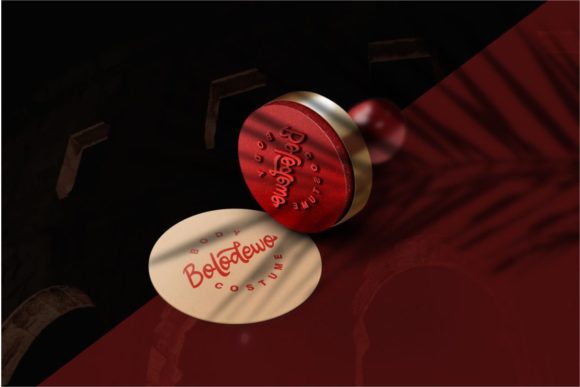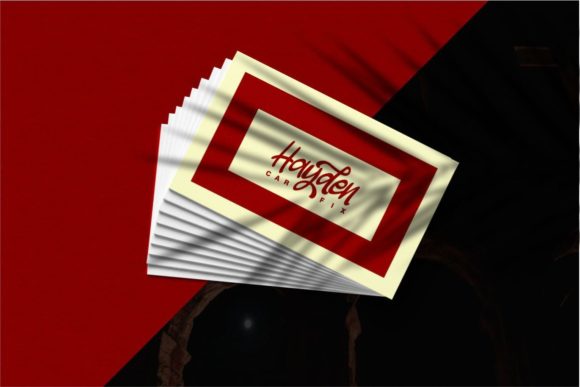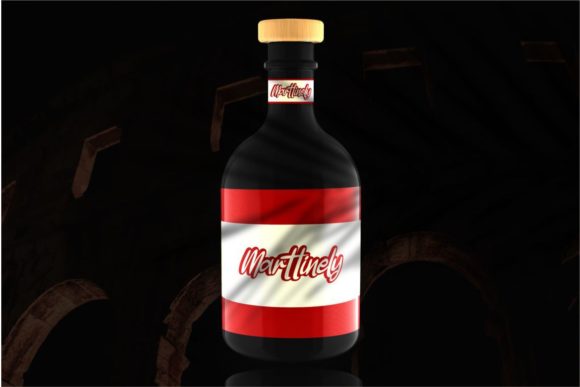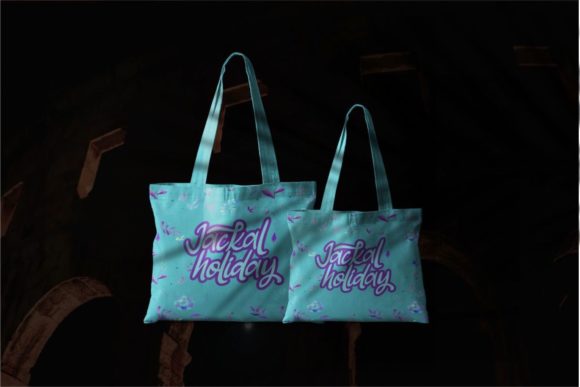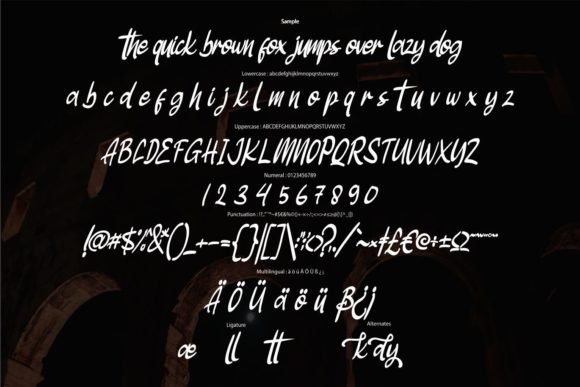
Introduction to Sayday Font
Sayday is a lovely and delicate script font that exudes elegance and class.
This font was particularly crafted for those who need a beautiful and refreshing look to their designs .
Key Features of Sayday Font